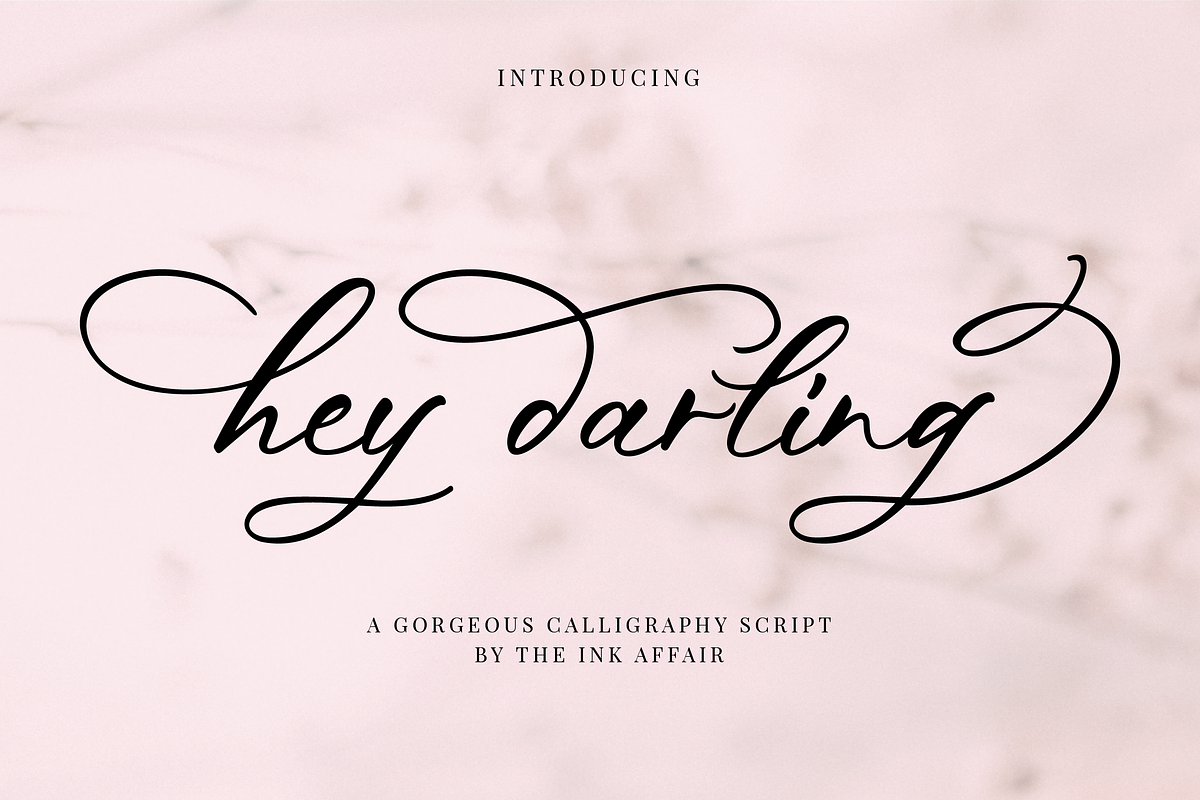
Hey Darling Calligraphy Script Font Free Download is a beautifully hand-lettered script font that exudes elegance and charm. Designed by The Ink Affair, this font is perfect for wedding invitations, logos, branding, event invitations, social media posts, and more. It includes a full set of uppercase and lowercase letters, numbers, punctuation, and international support. Additionally, it offers two sets of lowercase letters with beginning and ending flourishes to add a stylish touch to your designs.